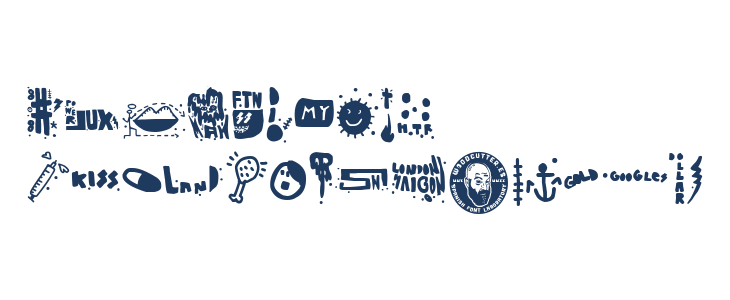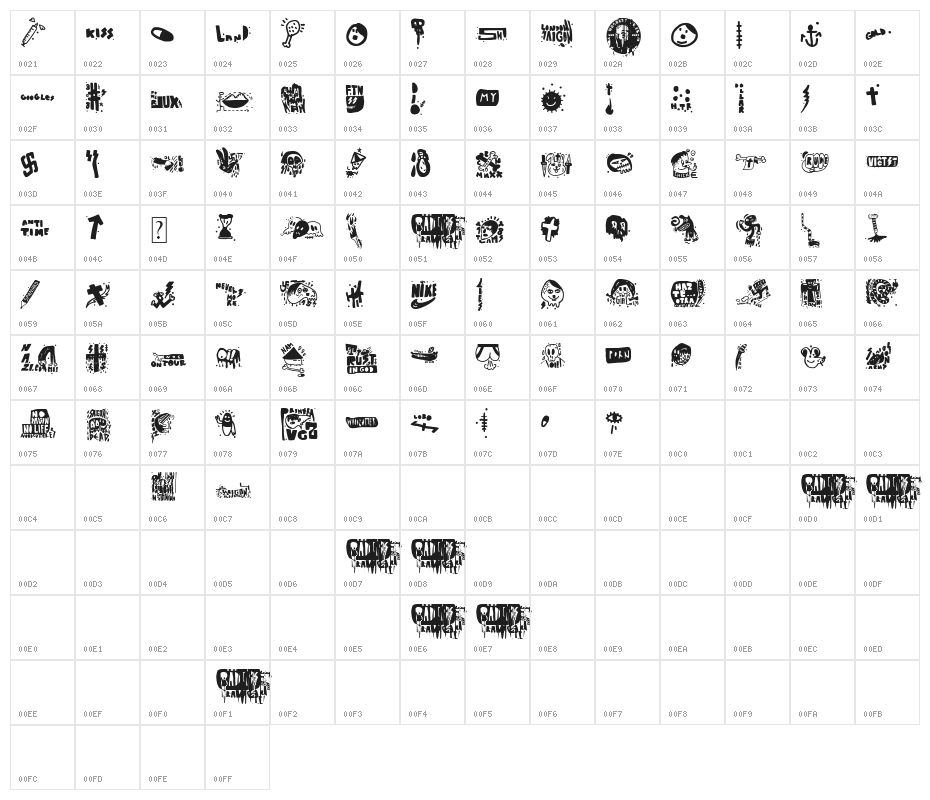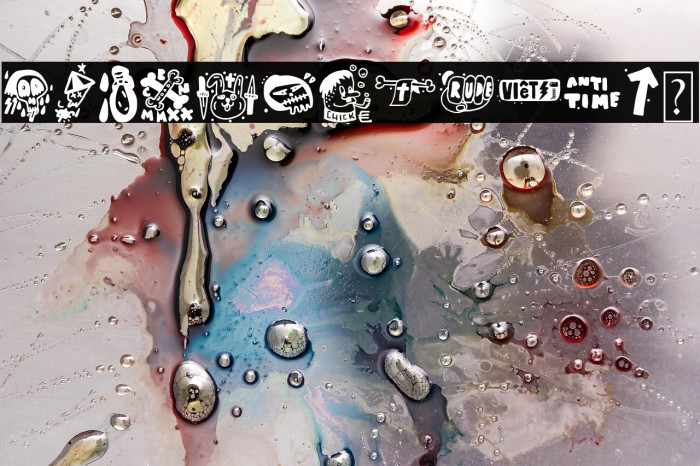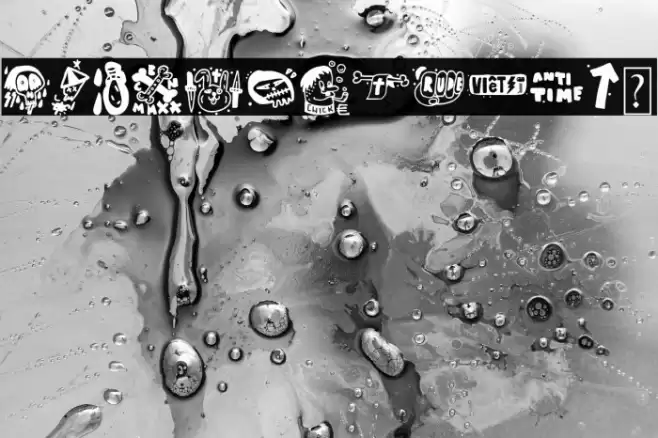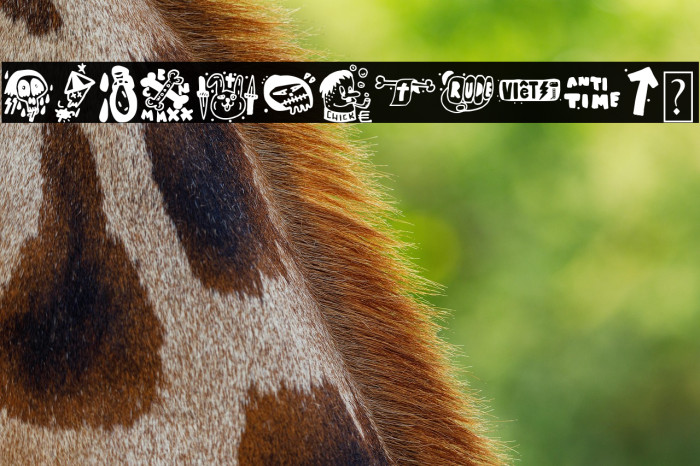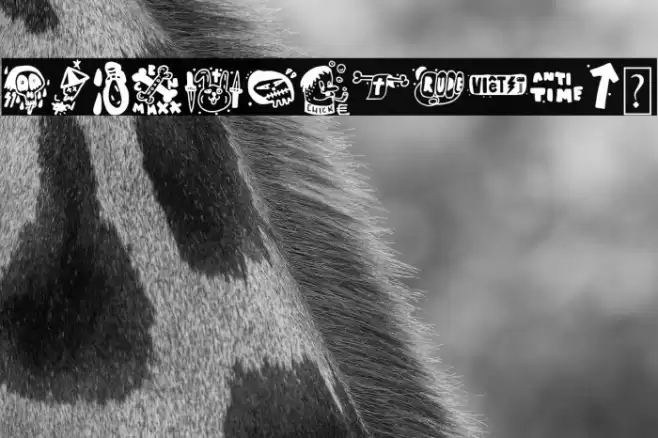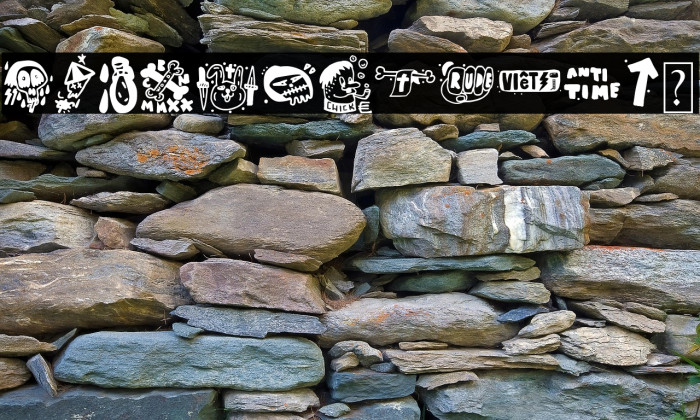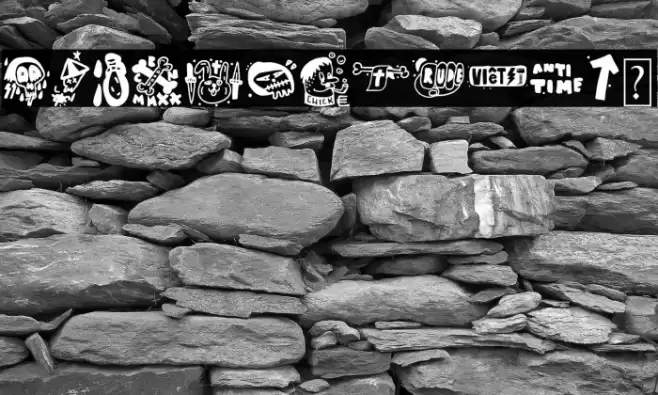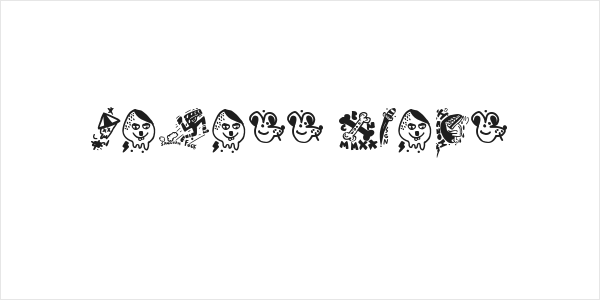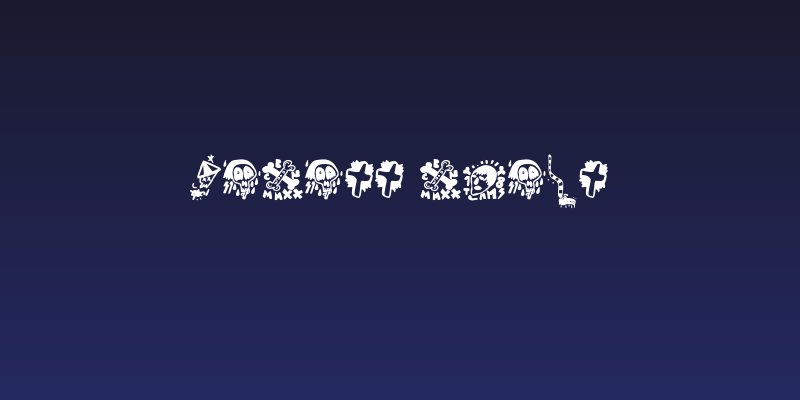
Badass Draws Font
Badass Draws Description
This font is a highly creative and illustrative typeface that incorporates a variety of graphic elements within each character. Each letter is uniquely designed with intricate details, often including faces, symbols, and abstract shapes. The style is bold and expressive, with a hand-drawn quality that gives it a raw, edgy feel. The characters are filled with visual noise and texture, making them stand out as individual pieces of art. This font is not uniform in size or shape, with each letter having its own distinct personality. The overall appearance is chaotic yet artistically cohesive, making it ideal for projects that require a strong visual impact.
| Proposed Projects | Ideal for album covers, poster designs, streetwear branding, and any project seeking a bold, artistic statement. |